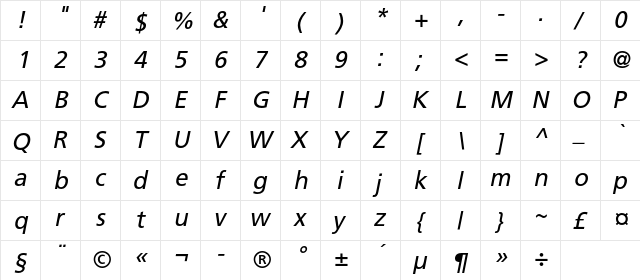
FreeSetC Italic
Design Context for FreeSetC Typeface
FreeSetC is a composed and adaptable typeface that performs quietly and consistently across a wide range of design contexts. Its italic angle brings a sense of urgency and motion to the letterforms.
Pro Tip: Try FreeSetC for annotation and caption copy alongside an upright companion — the contrast in angle creates a dynamic but ordered typographic system.